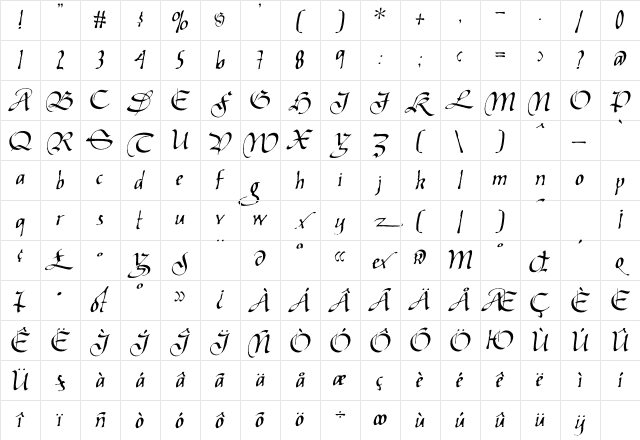
Liefendre Regular
Design Context for Liefendre
Liefendre is a composed and adaptable typeface that performs quietly and consistently across a wide range of design contexts.